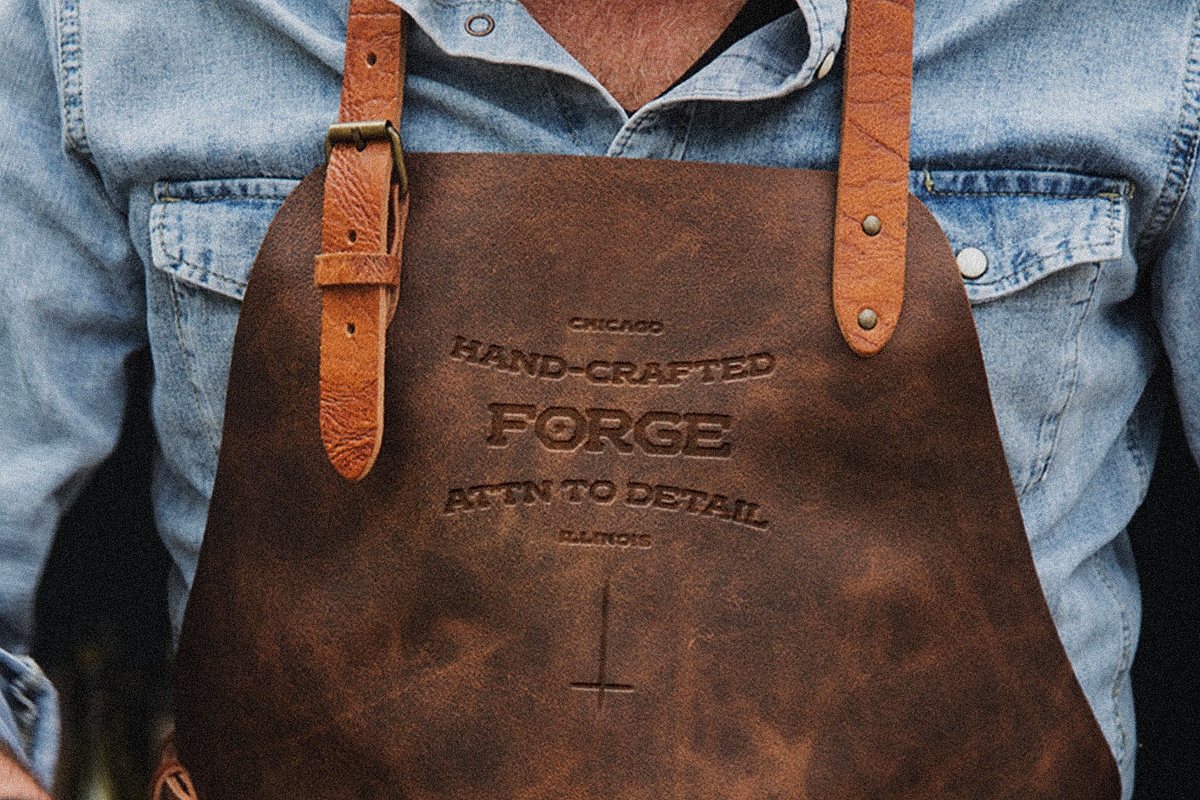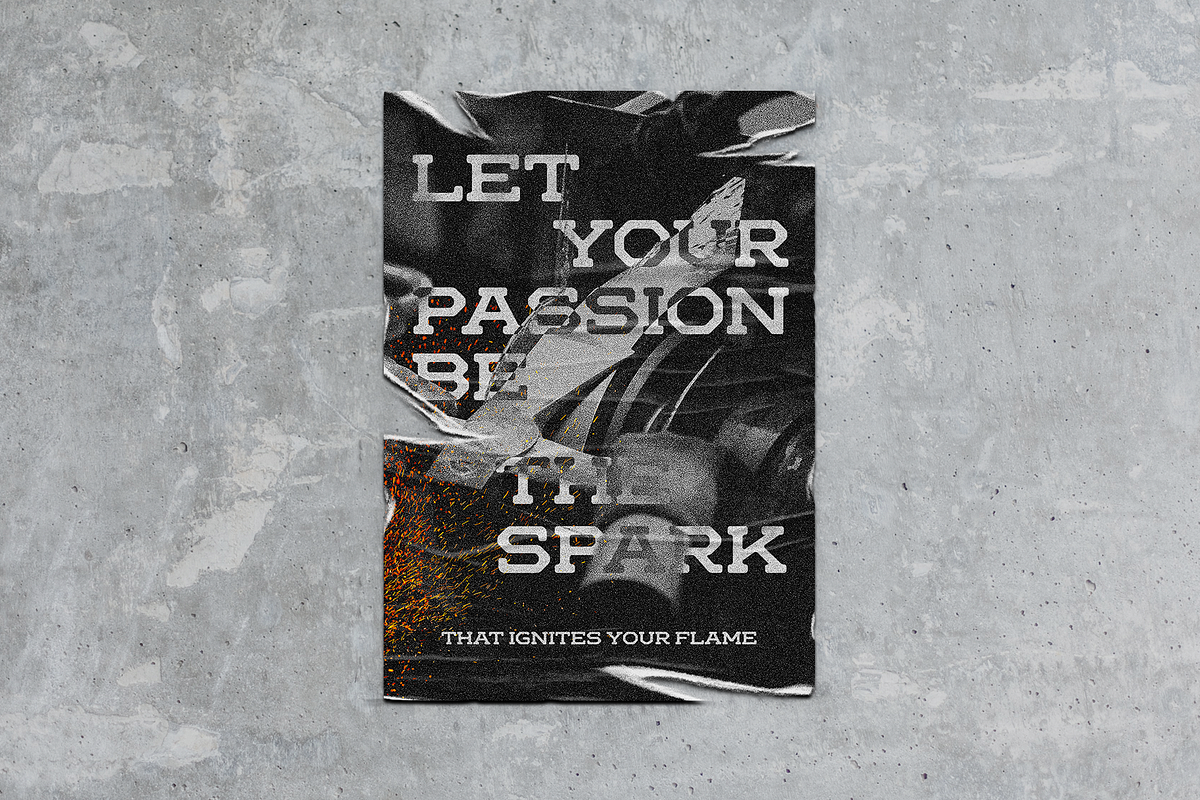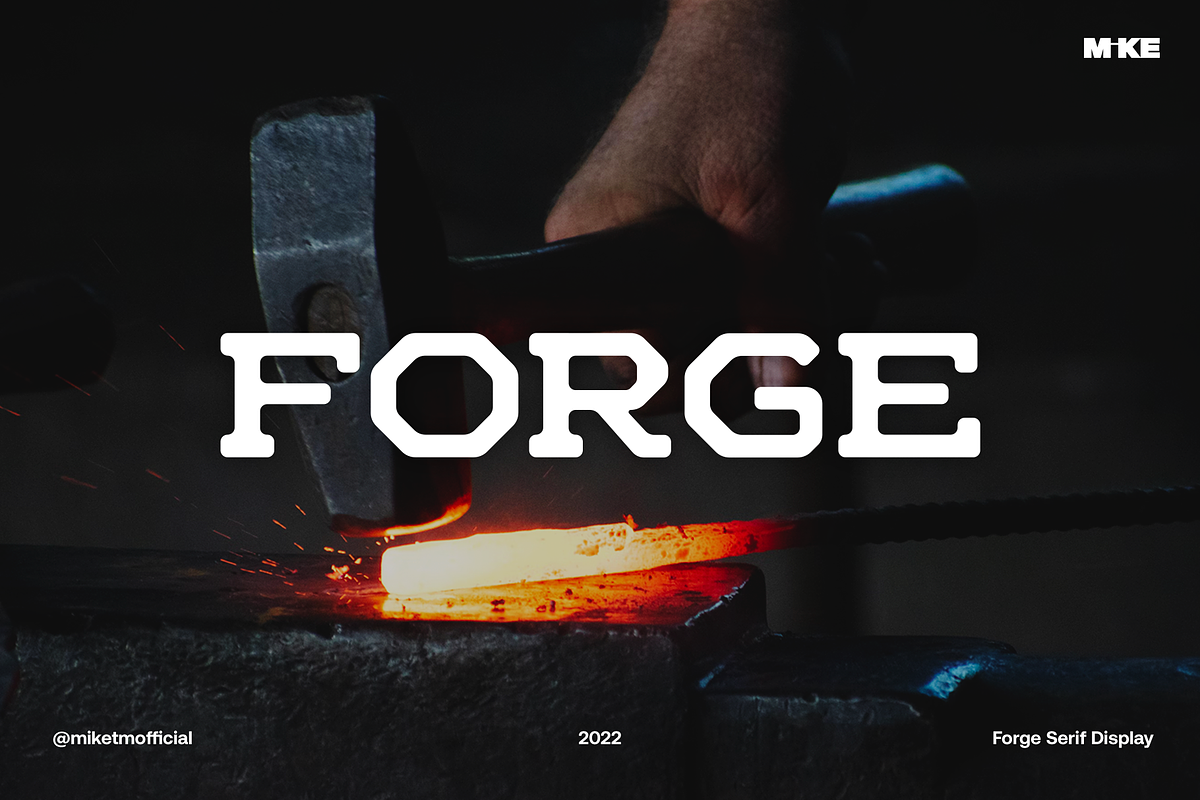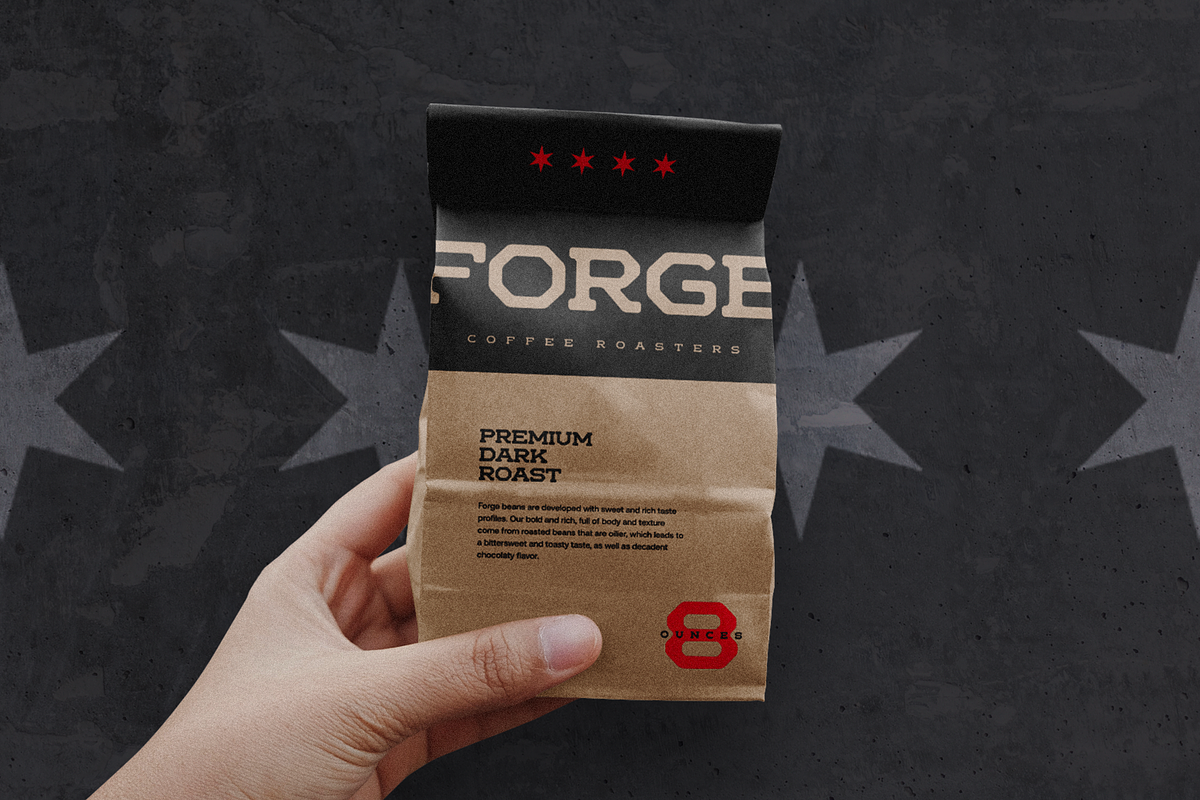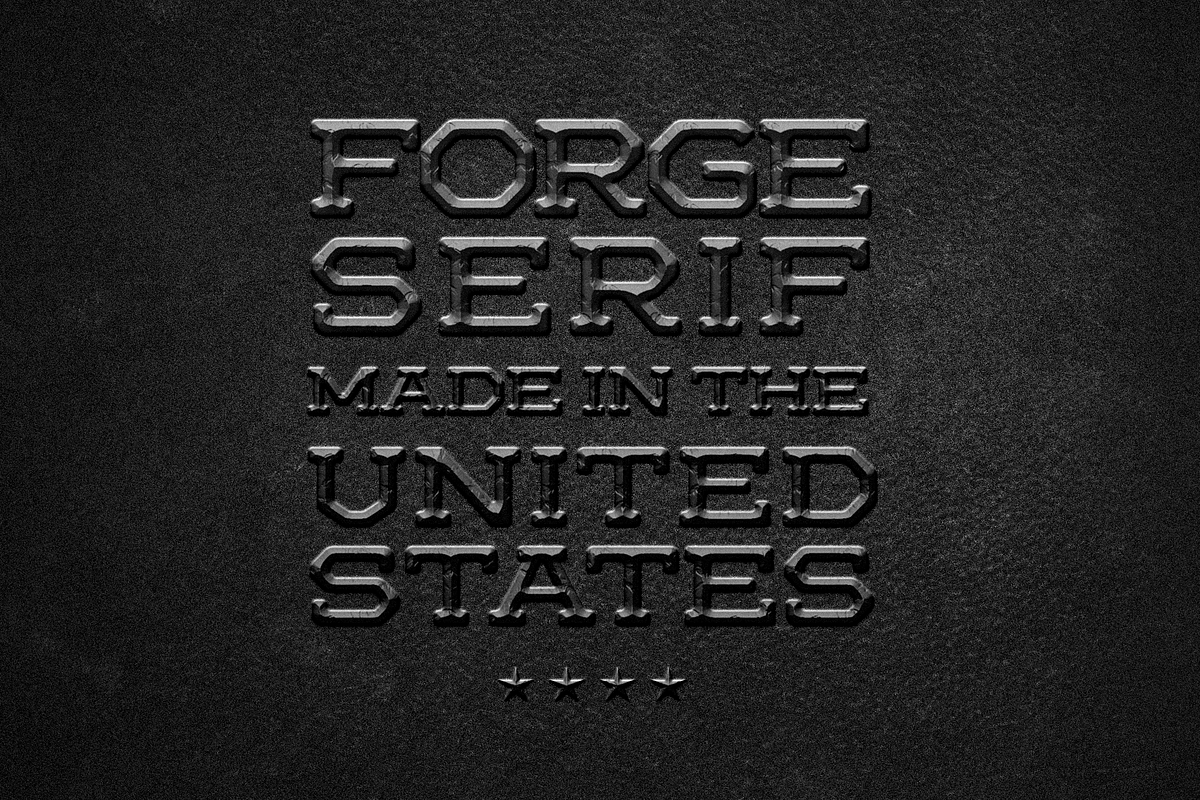
Forge Serif Display
Forge Serif is a display typeface that exudes strength in its width and overall construction, but conveys a sense of approachability with its rounded corners.